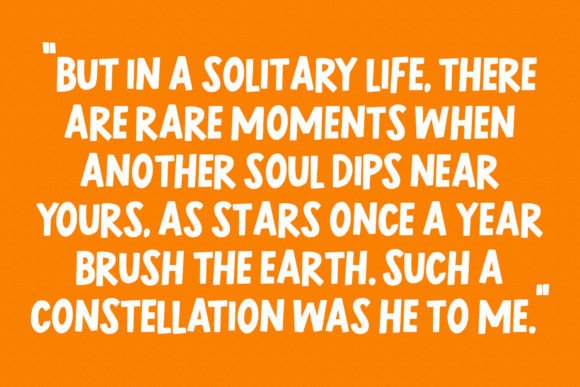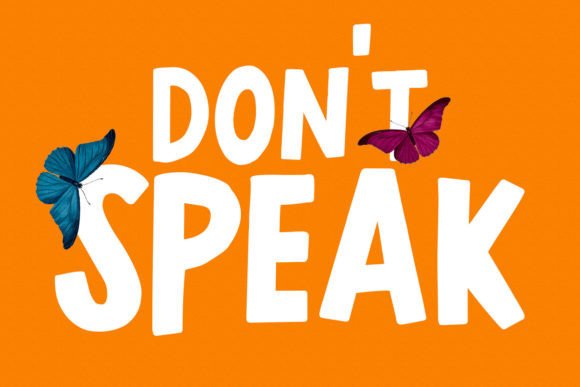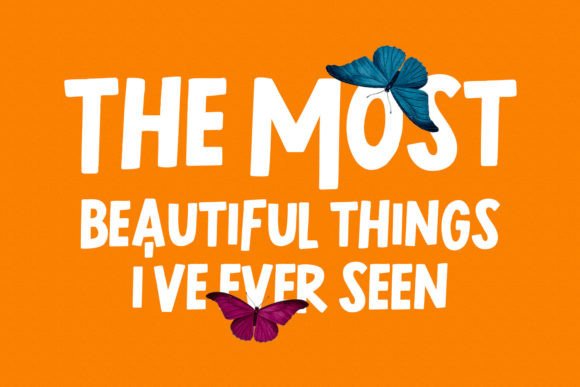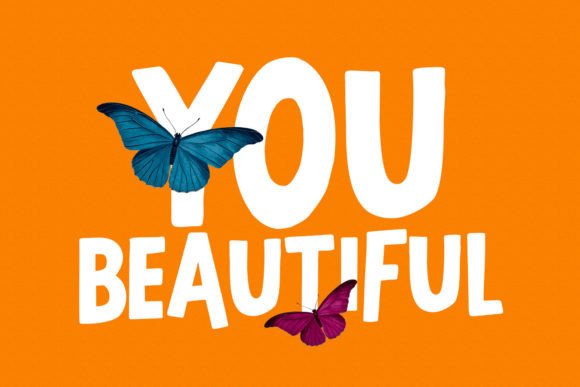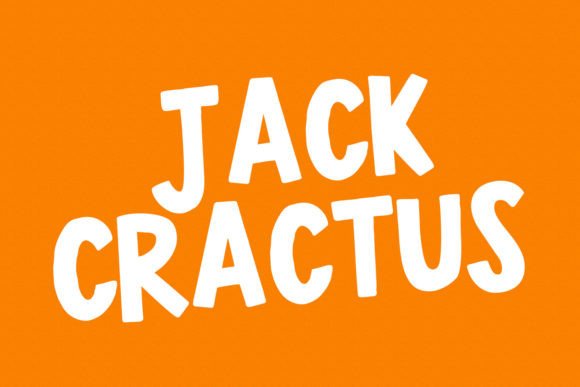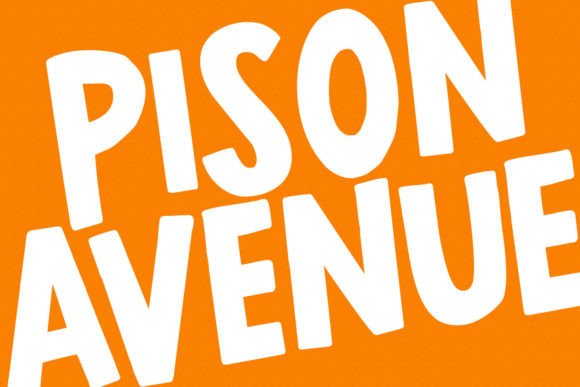
Unleash Your Creativity with the Bocarina Font
Who hasn’t had a moment where a spark of creativity hits, and you can’t wait to bring your idea to life? Perhaps it’s a quirky logo design, a catchy slogan, or a bold heading that stands out from the crowd. Whatever it is, the right font can make all the difference. And that’s where the Bocarina Font comes in – a bouncy and quirky display font that’s perfect for adding a touch of charm and style to your designs.
As a friendly typeface, the Bocarina Font is ideal for quotes, headings, logos, branding, merchandise, and websites. Its versatility and playfulness make it a valuable asset for designers looking to add some personality to their projects. With the Bocarina Font, you can create eye-catching designs that capture attention and leave a lasting impression.
Bocarina Font Key Features
- Font Family: Bocarina is a sans-serif font family with 12 styles, including Light, Regular, Medium, Bold, Extra Bold, Black, and more.
- Language Support: Offers comprehensive language support, including Latin, Cyrillic, and Greek alphabets, making it a versatile font for international applications.
- Unique Characteristics: Bocarina features a clean, modern design with subtle rounded edges, giving it a friendly and approachable feel.
Bocarina Font Review
Overall, I’m quite impressed with the Bocarina Font. It has a unique, hand-drawn quality that sets it apart from other fonts in its class. ✨ The curves are smooth, and the letterforms are well-balanced, making it a pleasure to read.
- ✨ Unique, hand-drawn feel that adds a touch of personality to any design.
- ✨ Smooth curves and well-balanced letterforms make it easy to read.
- ✨ Supports a wide range of languages, making it a great choice for international projects.
- ⚠️ Limited font weight options, which may not be suitable for all design projects.
- ⚠️ Some characters may not be as legible at smaller font sizes.
- ⚠️ May not be suitable for highly technical or formal designs, due to its playful, handwritten feel.
Overall, I think the Bocarina Font is a great choice for designers looking for a unique, eye-catching font. While it may have some limitations, its strengths far outweigh its weaknesses, and it’s definitely worth considering for your next project.
Tips for Getting the Most Out of Bocarina Font
Use the Bocarina font for creative projects that require a unique and stylish touch. Experiment with different font sizes and colors to achieve the desired effect.
The Bocarina font is suitable for:
- Artistic and creative projects